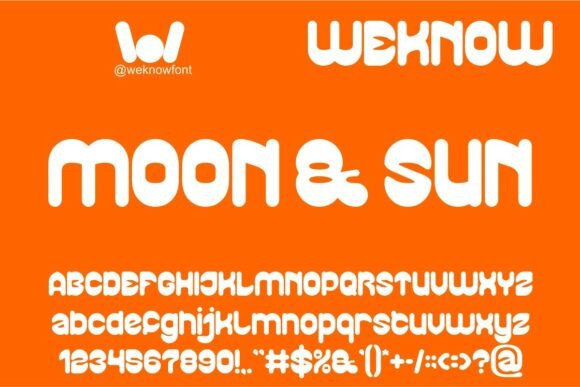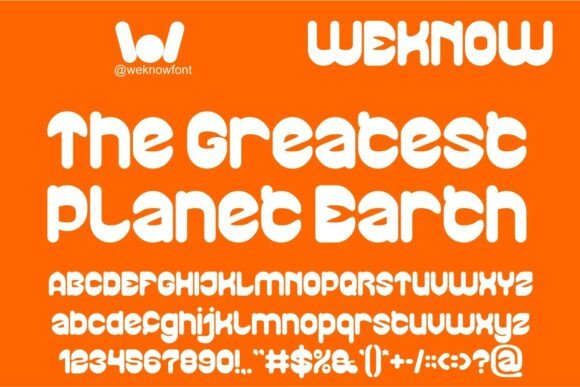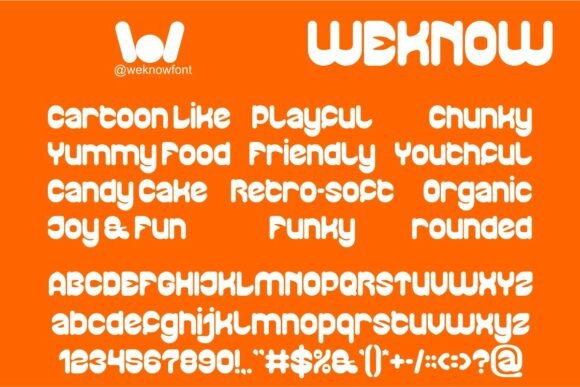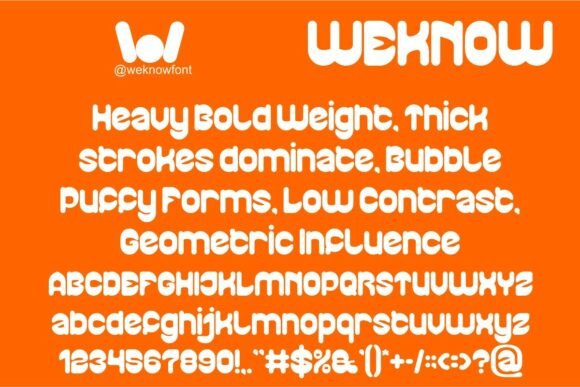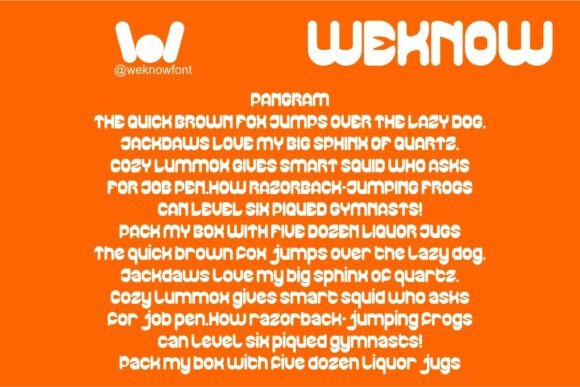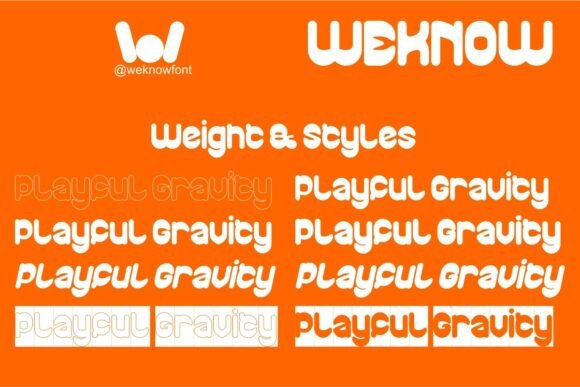
Introduction to Playful Gravity Font
Introducing Playful Gravity, an enchanting, rounded sans-serif font characterized by its heavy bold weight and charming bubble-like forms.
Hearty and rich in retro softness, it is a quintessential choice for imprinting your unique stamp in a variety of design endeavors Perfectly tailored for logos, logotypes and headlines, it also resonates remarkably well with corporate and brand identities.
Key Features of Playful Gravity Font